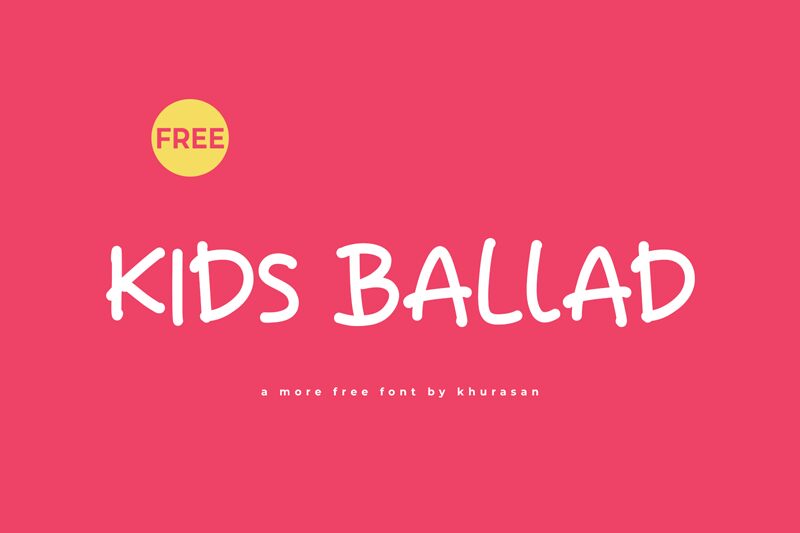
Kids Ballad
Kids Ballad is a captivating handwritten font that exudes a whimsical and youthful charm. Designed by Khurasan, this font's bold, organic strokes and playful character embody the essence of childhood, making it an ideal choice for a wide range of design applications.
The font's distinctive aesthetic lends itself beautifully to projects that require a sense of warmth, creativity, and a touch of nostalgia. From children's book covers and greeting cards to branding for family-oriented businesses, Kids Ballad's unique personality can instantly infuse any design with a playful, handcrafted feel.
Embracing the spontaneity and energy of handwritten text, this font invites designers to create engaging, memorable visuals that resonate with their audience on an emotional level. Its versatility allows it to seamlessly transition between playful and sophisticated applications, making it a valuable addition to any designer's toolkit.